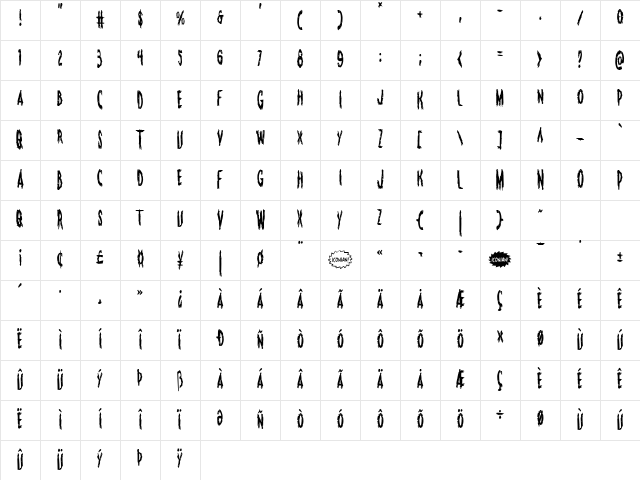
Monsterama is a composed and adaptable typeface that performs quietly and consistently across a wide range of design contexts. Its narrow stance lets it pack a punch even in space-constrained designs.